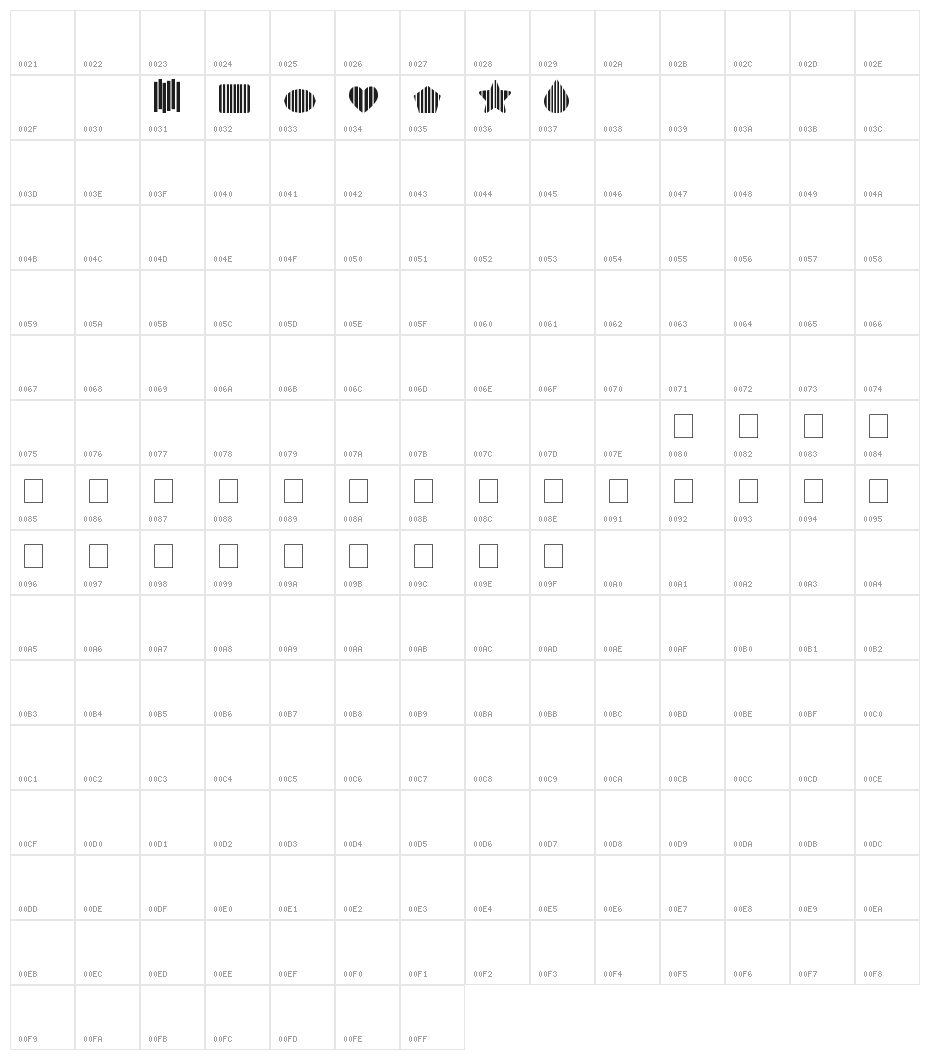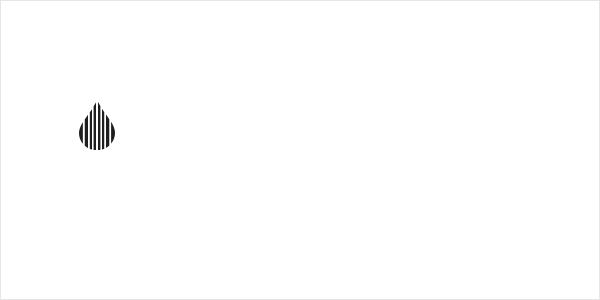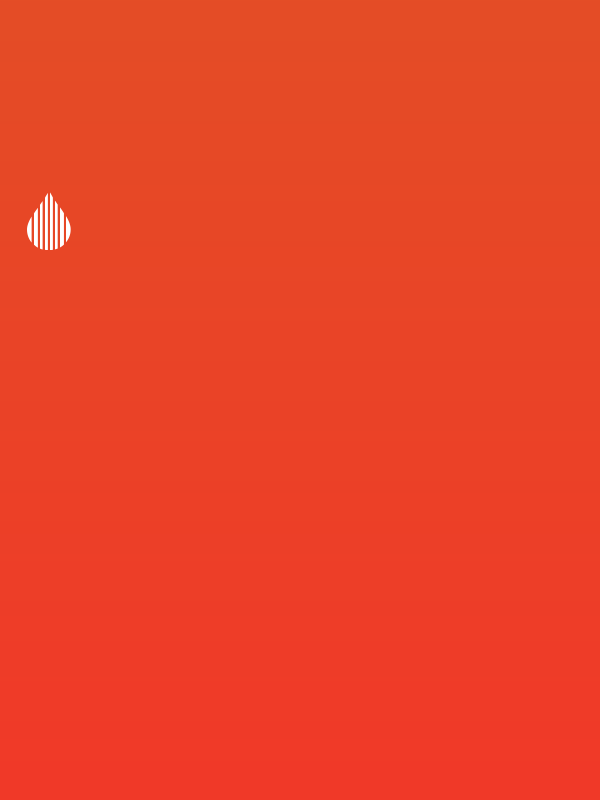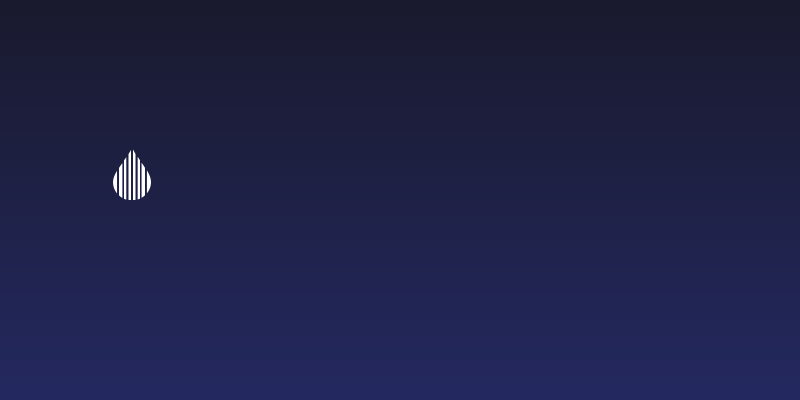
7 Dingbat Slats LT Font
This set of symbols features a series of geometric shapes, each composed of vertical slats that create a striped effect. The shapes include a rectangle, oval, heart, diamond, star, and teardrop, each with a distinct and bold appearance. The consistent use of vertical lines gives these symbols a modern and abstract feel, making them suitable for decorative purposes. The uniformity in line thickness across all shapes ensures a cohesive look, while the negative space between the slats adds visual interest and depth.
Use CaseLogos, Decorative elements, Posters
Proposed ProjectsIdeal for use in modern graphic design projects, such as logos, posters, and digital artwork where a bold, abstract element is desired.